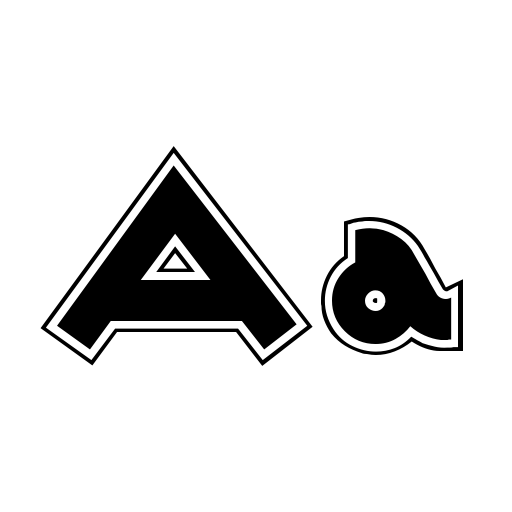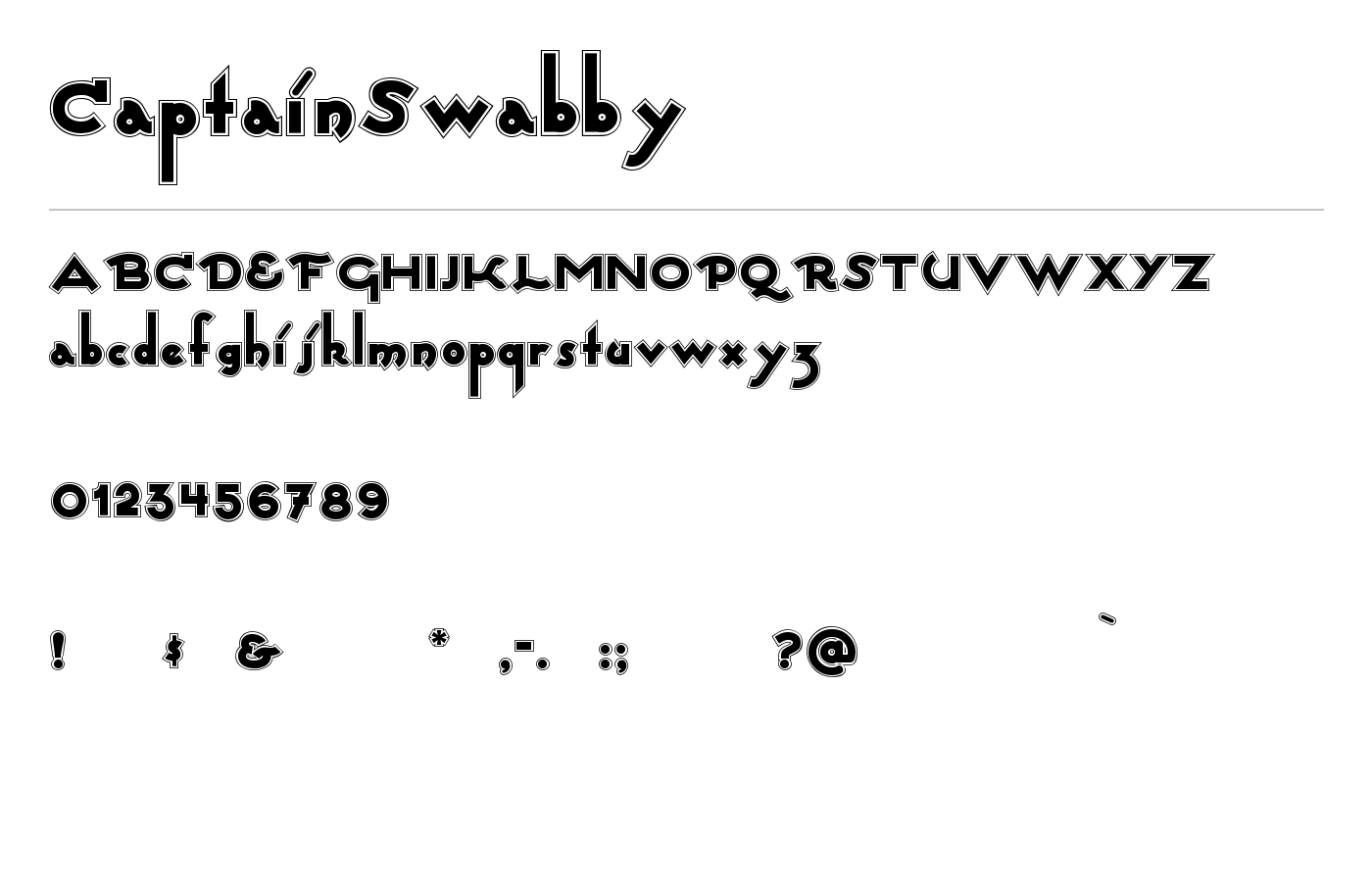
CaptainSwabby is a bold, decorative sans serif font with a playful, vintage flair. Its thick strokes, sharp edges, and unique angular details give it a quirky yet strong personality, perfect for eye-catching headlines, logos, and fun branding projects. This font works best where a lively, confident look is needed to make a memorable impression.
CaptainSwabby Font
About CaptainSwabby Font